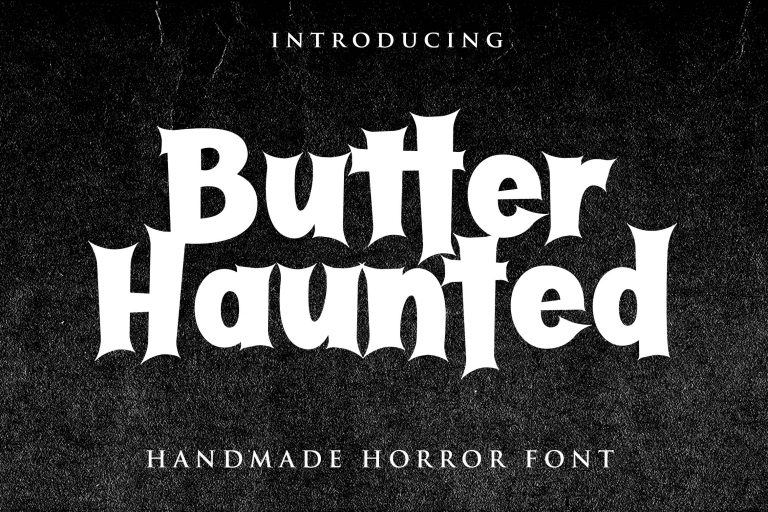
Butter Haunted Display Font
Hi designer! I am happy to introduce you to a horror typeface. Introducing Butter Haunted Font! Butter Haunted designed by  Lettersiro. Butter Haunted is cool horror font. You can use this font for every horror moment like Halloween, Dark Clothing, Horror Movie Poster, and etc